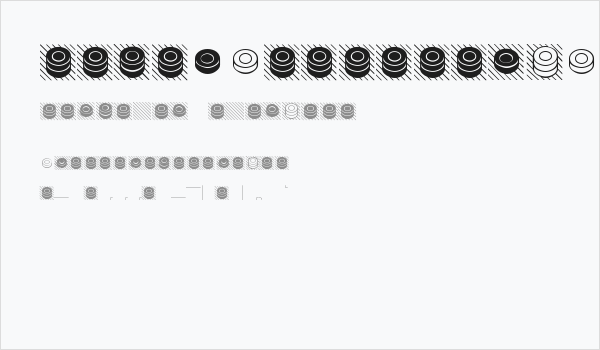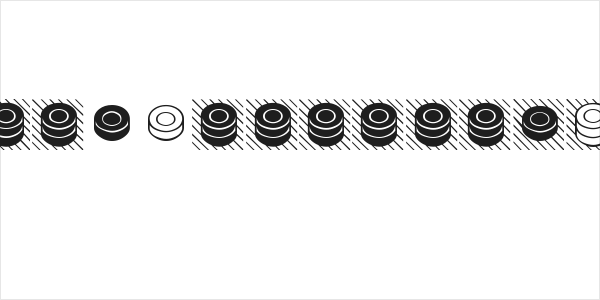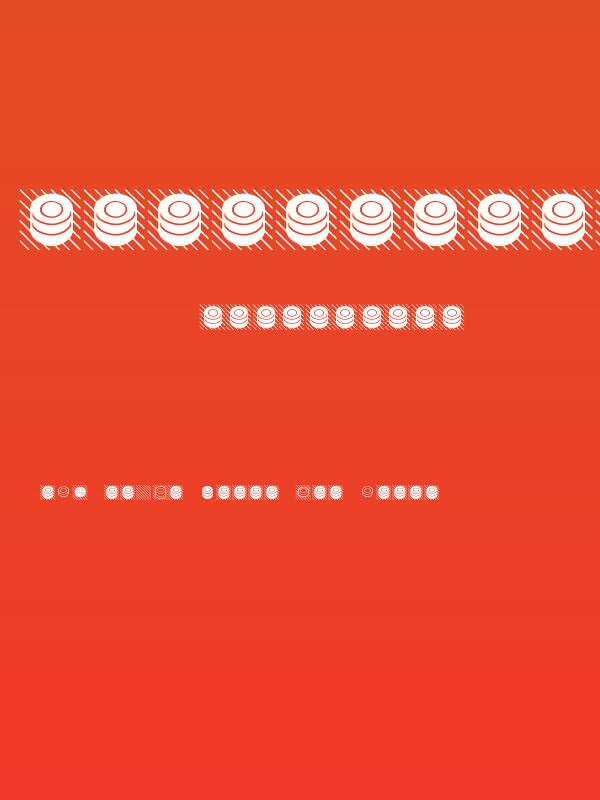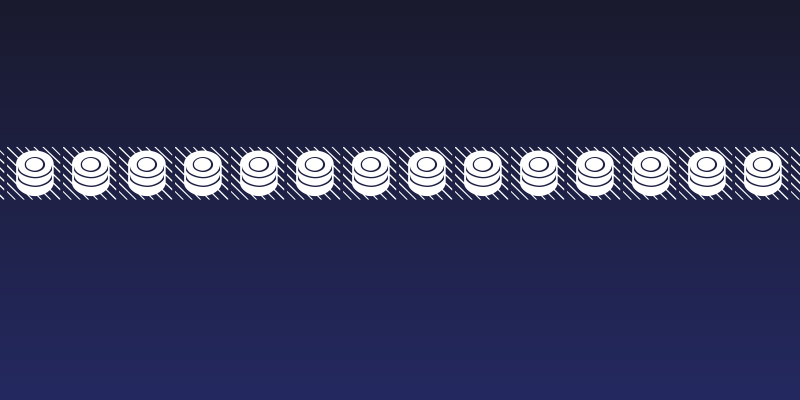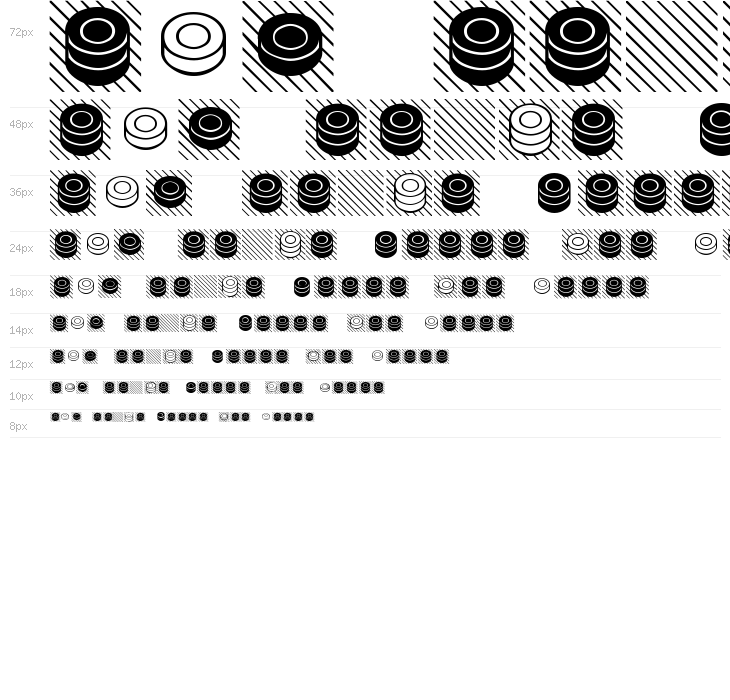
Draughts-Utrecht Font
Draughts-Utrecht Description
This image does not depict a traditional font. Instead, it features a series of circular shapes resembling game pieces, possibly from a board game like draughts or checkers. The pieces are arranged in rows and columns, with some variations in shading and pattern. The overall design is geometric and repetitive, lacking any alphabetic or numeric characters typically associated with fonts.
| Overall Style | Geometric, Game-themed |
| Use Case | Board games, Patterns, Educational materials |
| Proposed Projects | This design could be used for board game graphics, pattern designs, or educational materials related to games. |